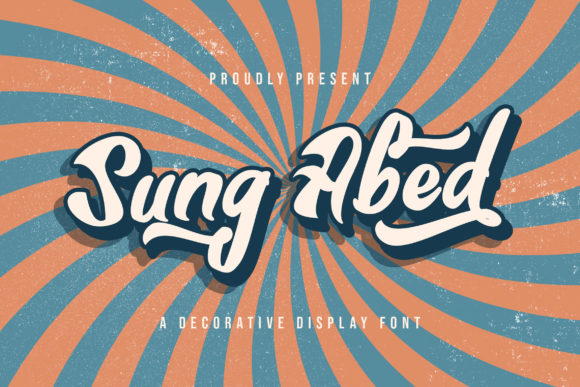
**Introducing Sung Abed: The Display Font That Will Captivate Your Audience**
Prepare to be mesmerized by Sung Abed, a stunning display font that exudes strength, confidence, and dynamism. Its bold and striking characters will leave an unforgettable impression on every design you create, transporting your audience to a world of cinematic wonder.
**Embrace the Nostalgic Charm**
With Sung Abed, you'll step into a realm of timeless elegance. Its carefully crafted curves and sharp edges evoke a sense of nostalgia, transporting you to the golden age of movie scripts and vintage posters. Unleash your creativity and let Sung Abed's charm ignite a spark of inspiration within your designs.
**A Font for Every Movie Script**
Whether you're crafting a gripping screenplay, a thought-provoking documentary, or an epic blockbuster, Sung Abed is the perfect font to convey the essence of your cinematic masterpiece. Its bold and assertive presence will command attention, ensuring that your words resonate with power and authority.
**Effortless Glyph Access**
Sung Abed makes it easy to add a touch of sophistication to your designs. Its PUA encoding allows you to effortlessly access a treasure trove of beautiful glyphs and swashes. Unleash your imagination and let your creativity soar as you explore the endless possibilities.
**Dynamic and Unforgettable**
With Sung Abed, your designs will radiate with confidence and leave a lasting impression. Its dynamic and unforgettable style will elevate your creations, captivating your audience and leaving them forever enchanted.
**Your Creative Gateway**
Let Sung Abed be your creative gateway to a world of cinematic storytelling. Whether you're designing posters, movie titles, or any other design that demands attention, this font will empower you to create masterpieces that resonate with your audience.